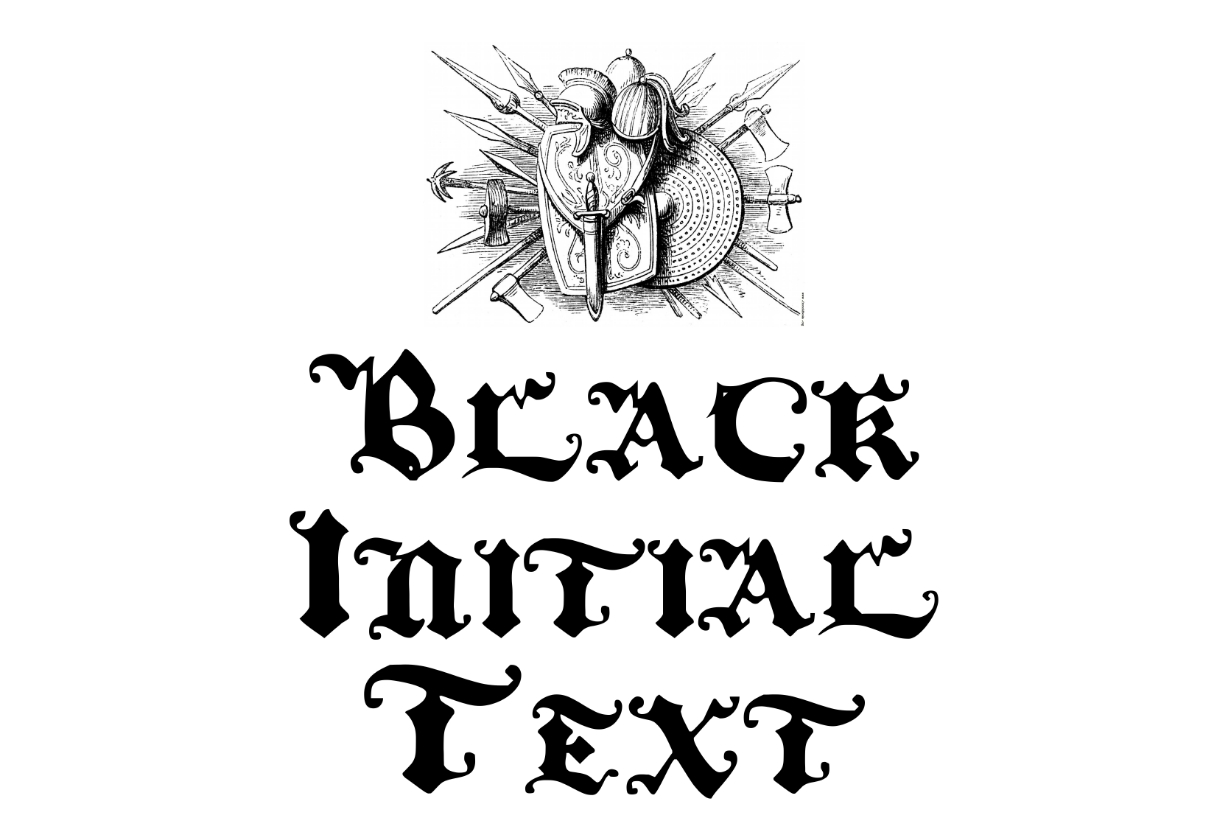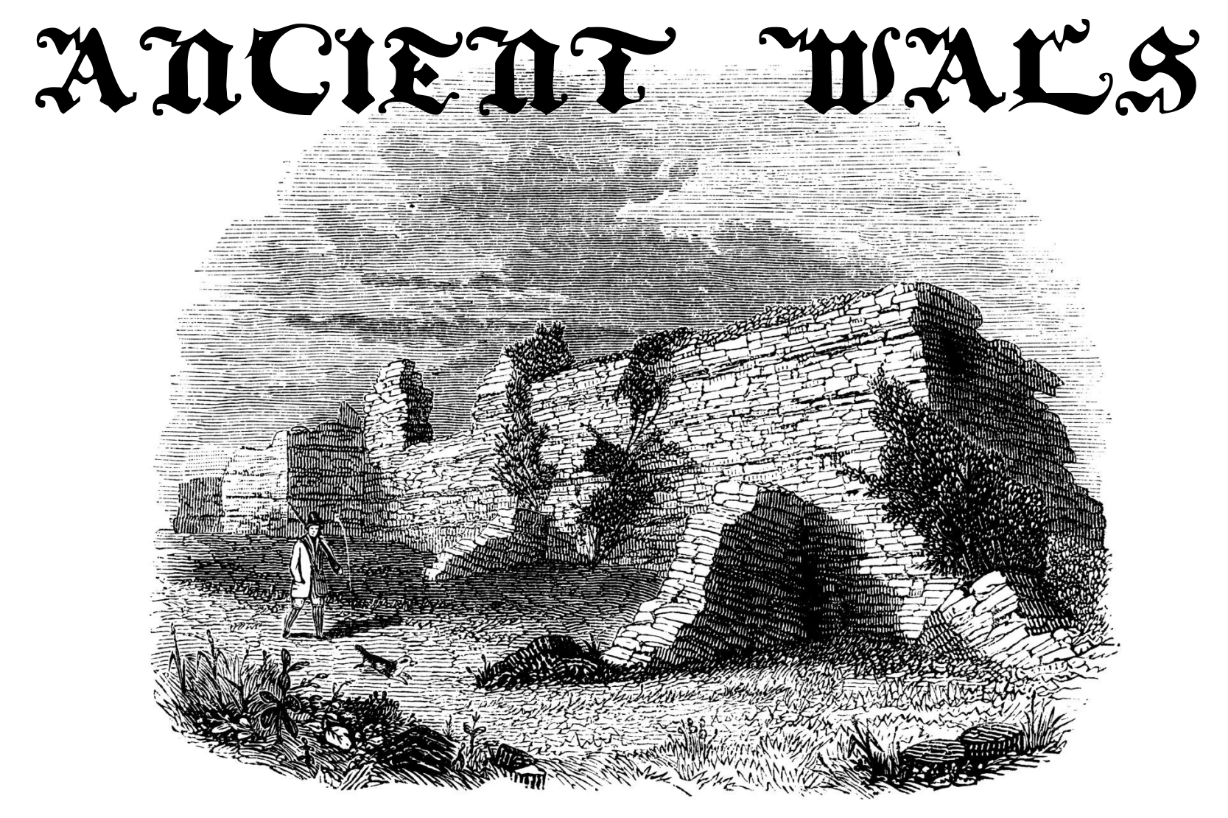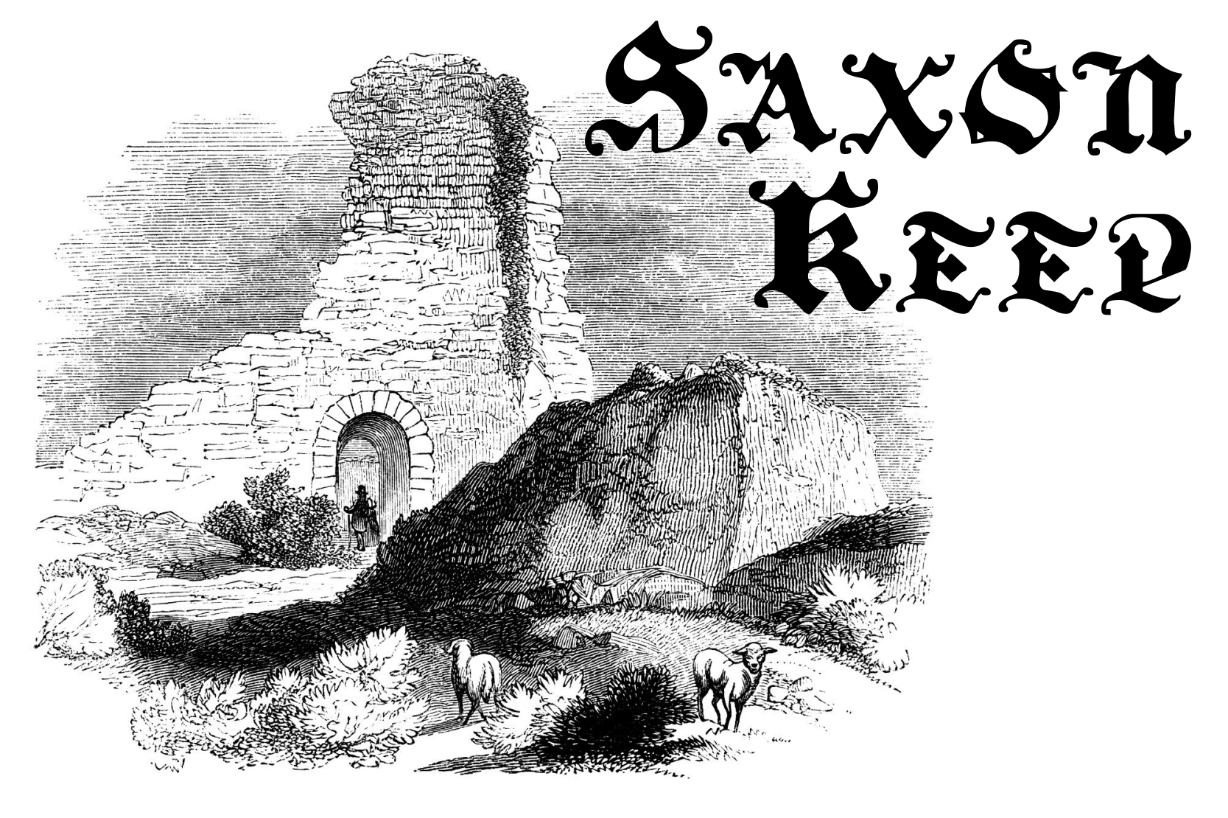
Black Initial Text Font
About Black Initial Text Font
The Black Initial Text is a grunge blackletter typeface. It has an unique touch which will make any design stand out.